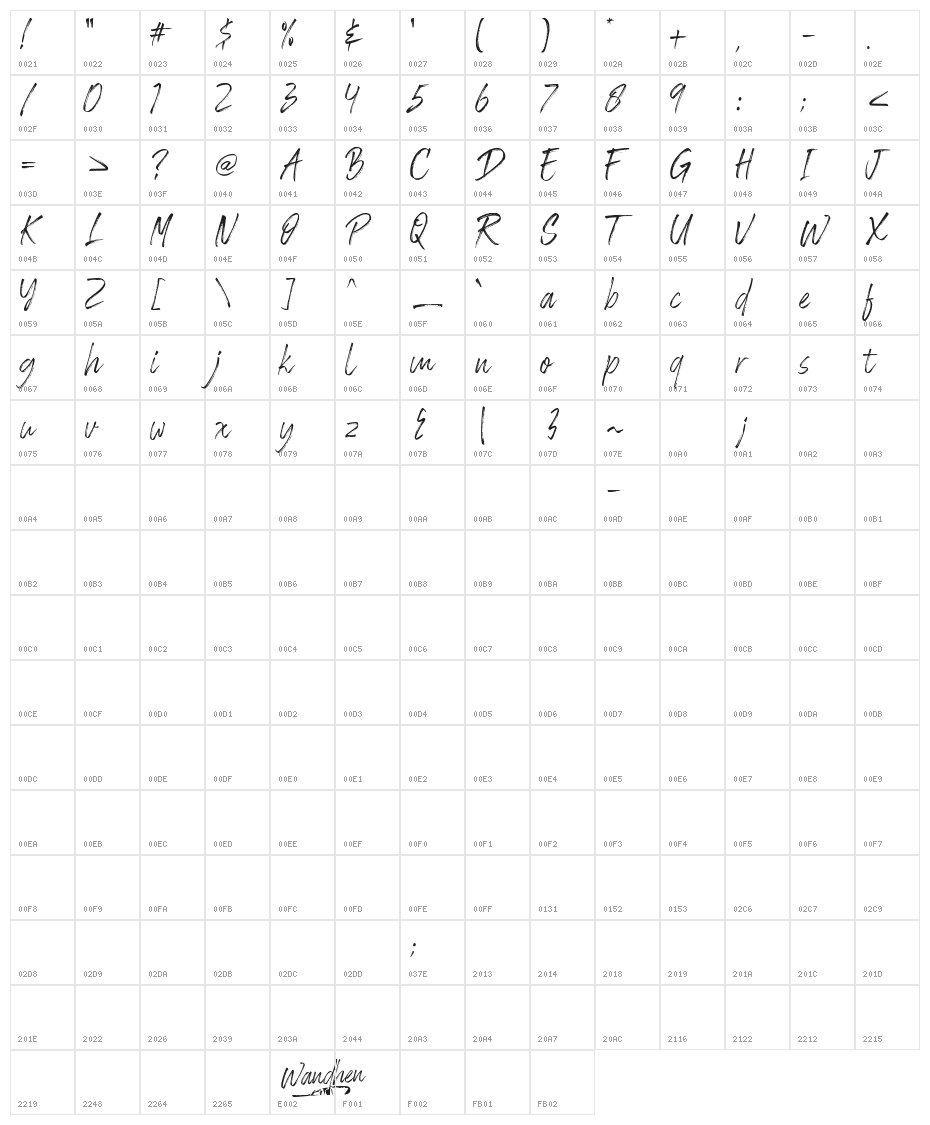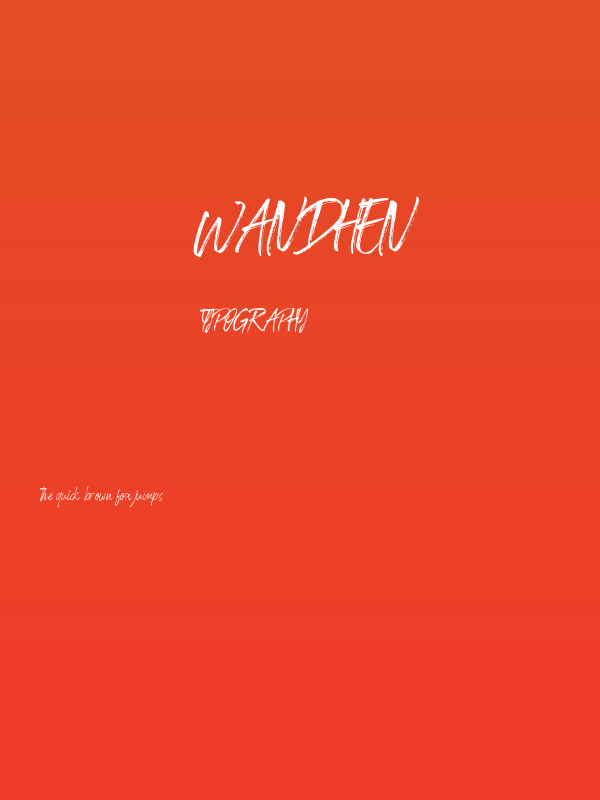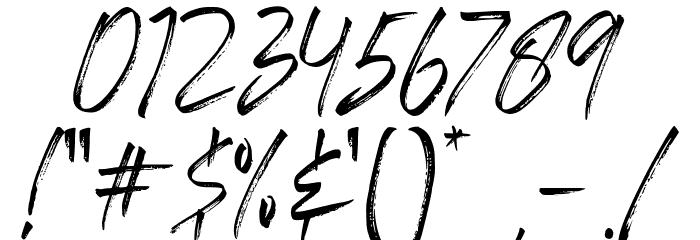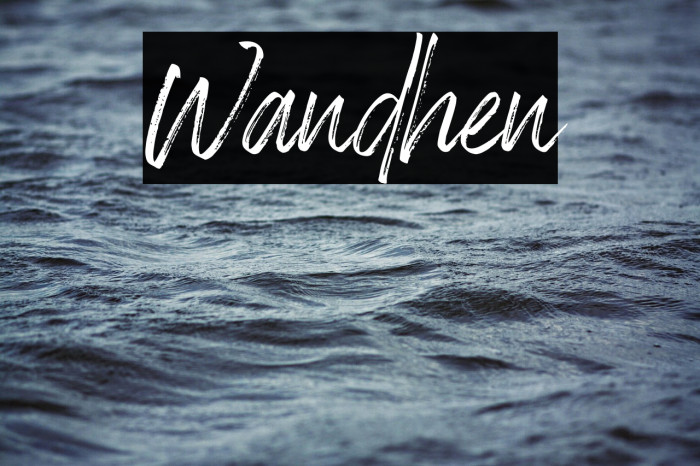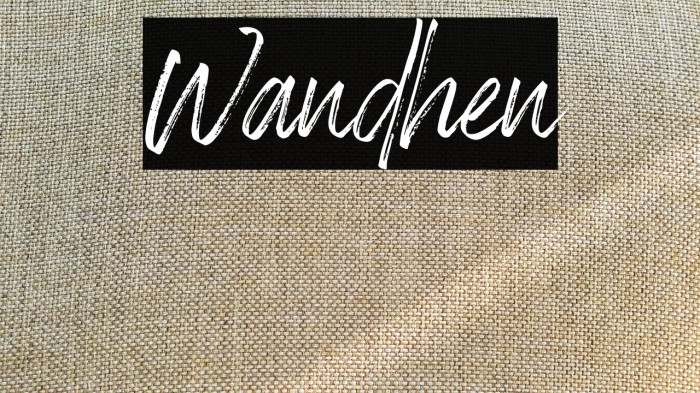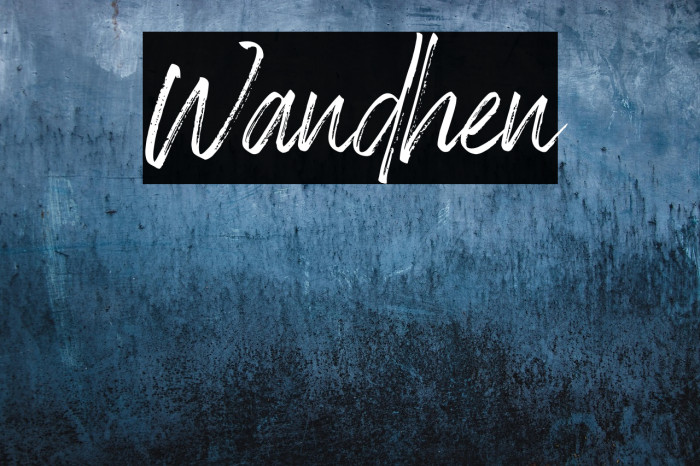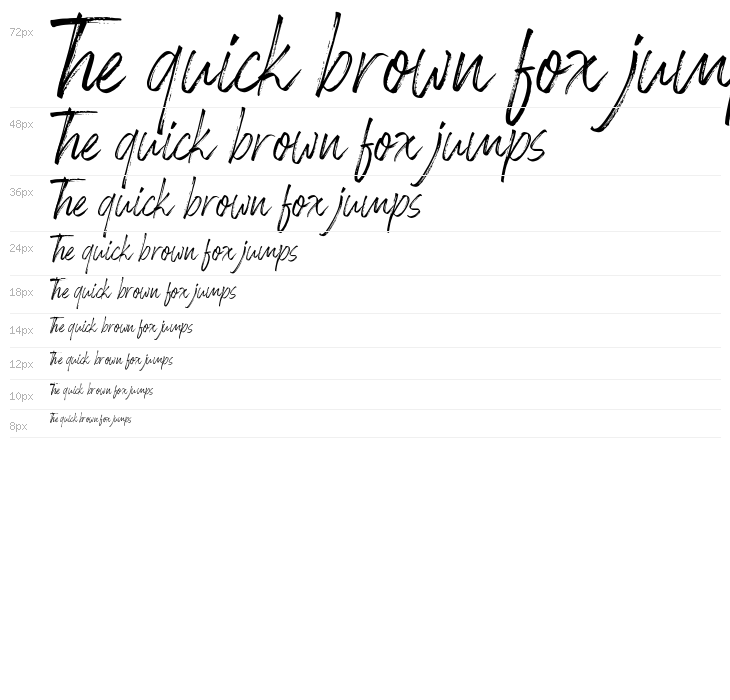
Wandhen Font
Wandhen Description
This font exudes a dynamic and energetic style, characterized by its brush-like strokes and fluid, handwritten appearance. The uppercase letters are bold and expressive, with varying stroke widths that add a sense of movement and spontaneity. The lowercase letters maintain this fluidity, offering a more casual and approachable feel. Numbers and special characters are crafted with the same lively brushwork, ensuring consistency across all elements. This font is perfect for projects that require a personal touch or a creative flair, such as artistic branding, invitations, or expressive headlines.
| Use Case | Headlines, Logos, Artistic projects |
| Proposed Projects | Ideal for artistic branding, creative invitations, and expressive headlines. |